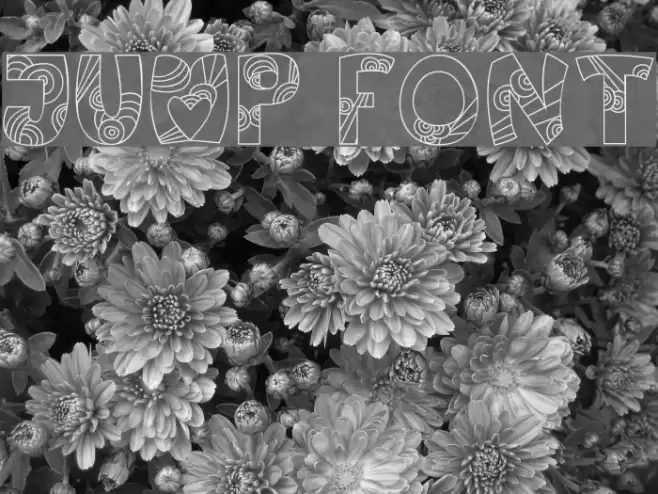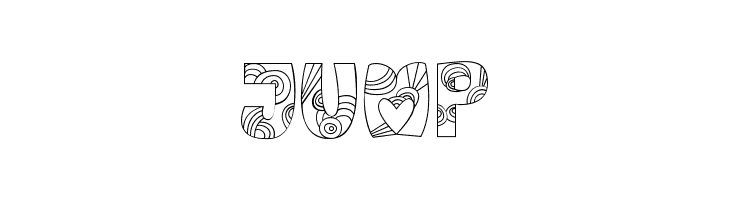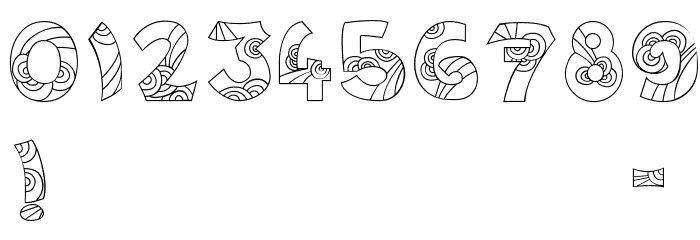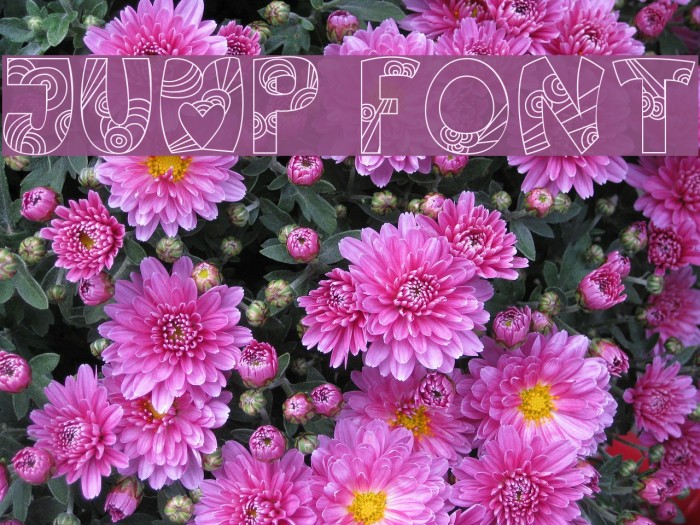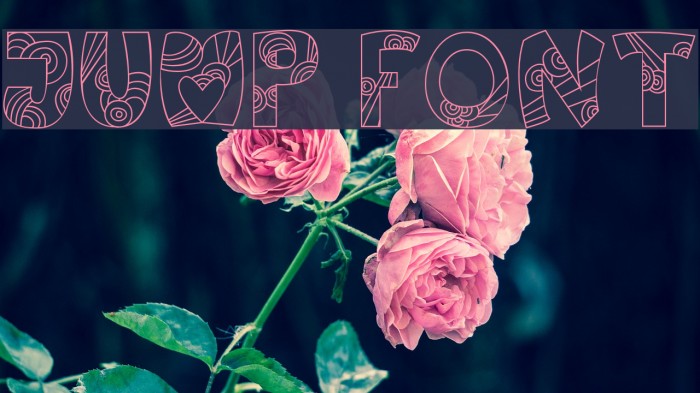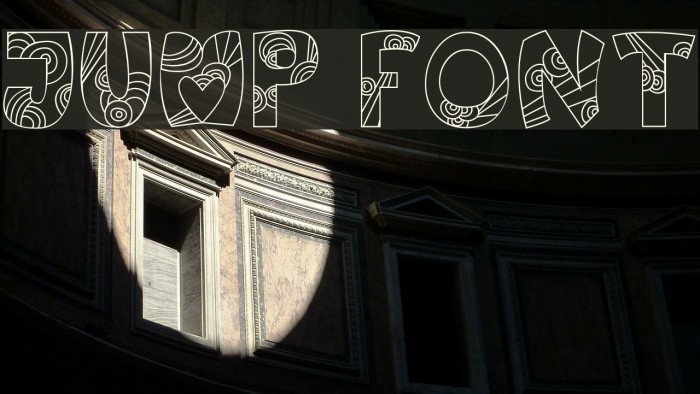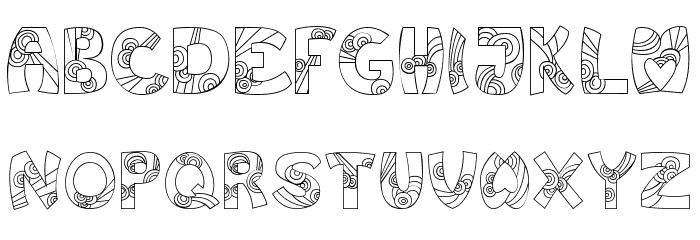
Jump Font
Jump Description
This font features a playful and decorative style with intricate patterns and swirls embedded within each character. The letters and numbers are bold and eye-catching, making them suitable for creative and artistic projects. The design incorporates a mix of geometric shapes and organic curves, giving it a unique and whimsical appearance. The font maintains a consistent line thickness throughout, ensuring readability while adding a touch of elegance. Its decorative nature makes it ideal for projects that require a standout visual element.
A playful, decorative font with intricate patterns and bold characters from Decorative fonts.
- Proposed Projects: Ideal for children's books, greeting cards, posters, and creative branding projects.